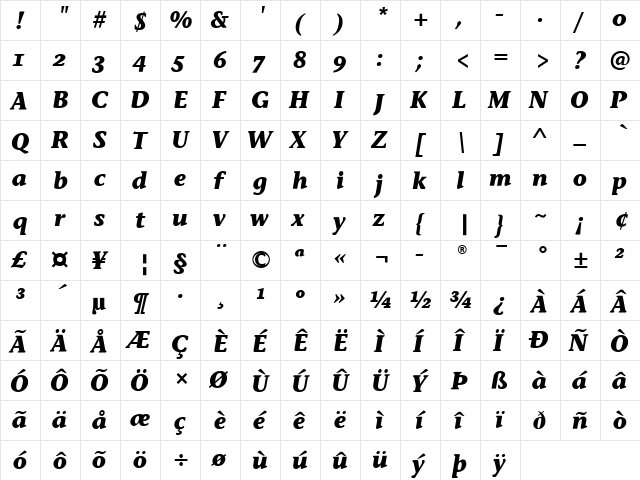
StoneInfOSITC Bold Italic
| Foundry | International Typeface Corporation |
Design Context for StoneInfOSITC Typeface
StoneInfOSITC offers clean, dependable letterforms without strong stylistic allegiance, making it a practical choice for designers who need flexibility. The slanted form adds forward momentum and visual energy. Its bold stroke weight gives it real presence on the page.